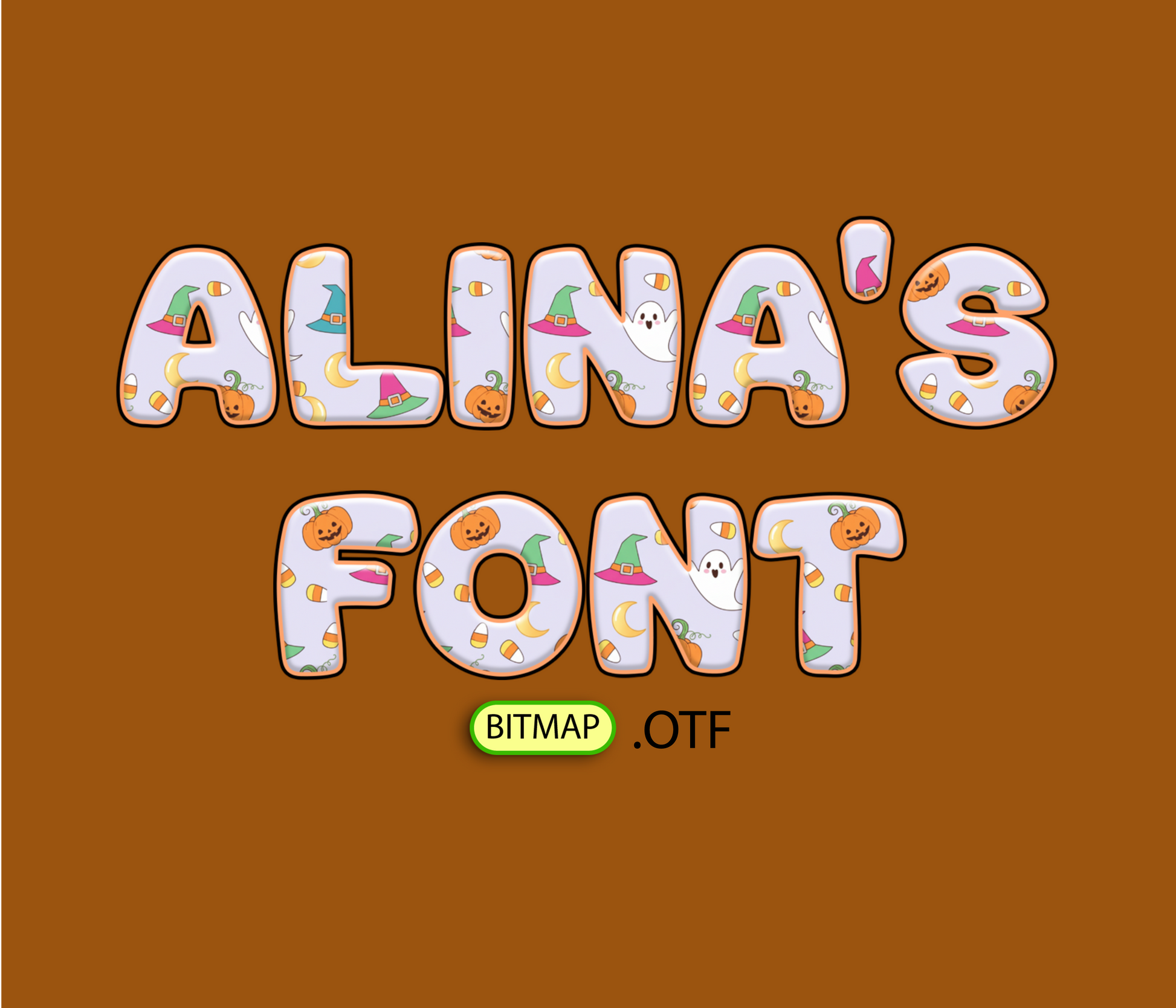
Wicked Halloween Fun Pattern Font
Step into the spooky world of haunted celebrations with our Wicked Halloween Fun font, capturing the essence of frightful festivities and eerie enchantment. Perfect for Halloween enthusiasts, party planners, event organizers, and designers, this font brings the playful, spooky spirit of trick-or-treat adventures to your projects. Create bewitching materials, merchandise, or digital content with the magical energy of haunted celebrations.
Our Wicked Halloween Fun font features whimsical, creepy lines and spooky characters reflecting the world of Halloween magic. Ideal for:
- Event Promotions: Create spine-chilling invites, posters, and banners for Halloween parties, haunted houses, and costume events that capture the spirit of frightful fun
- Merchandise Design: Perfect for t-shirts, posters, and accessories that showcase the playful aesthetic of spooky celebrations and eerie festivities
- Digital Media: Enhance websites, blogs, and social media with haunting headers and graphics that express the excitement of trick-or-treat adventures
- Seasonal Content: Add authentic flair to party decorations, Halloween projects, and creative designs inspired by spooky traditions
- Personal Projects: Bring bewitching excitement to scrapbooking, DIY crafts, and home decor inspired by the world of haunted celebrations
Our font pays tribute to the iconic world of Halloween festivities, empowering your designs with its playful and spooky spirit. Whether crafting promotional materials, designing merchandise, or adding a haunting touch to personal projects, this font communicates the bold essence of eerie celebrations. Ready to inject frightful magic into your creations? This font is your key to exciting, impactful design.